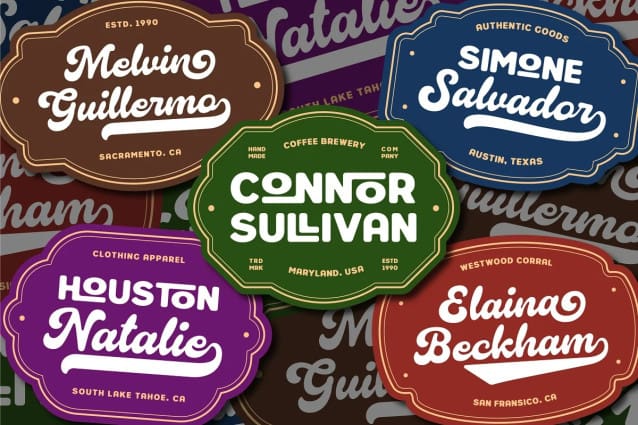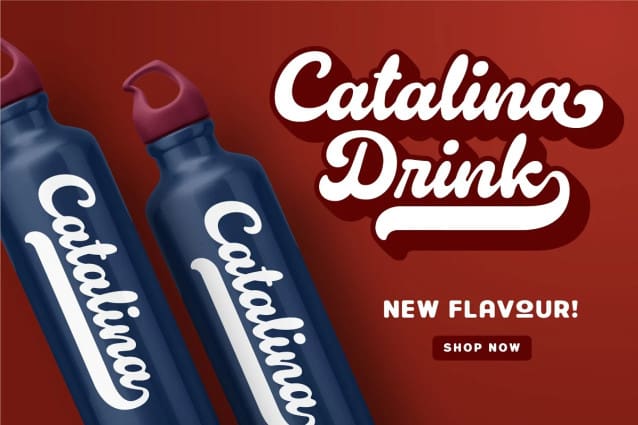
Remora Camilla Font
Remora Camilla Font, is a display script and unique sans font pair with a charming retro personality. They also have strong and bold characteristics. This font will be an appealing asset to your fonts’ library, as they have the potential to enhance any design project. RemoraCamilla is perfect for headings, covers, posters, logos, quotes, product packaging, merchandise, social media and much more!